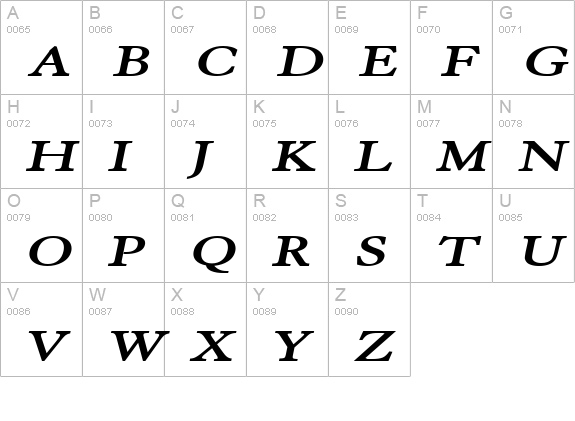
Elephant Extended BoldItalic is a distinctive, extended-width variant in the Elephant typeface family \xE2\x80\x94 well suited to design and typography projects.
Introducing Elephant Extended BoldItalic font - a powerful and dynamic typeface that demands attention. This font is designed to make a bold statement with its strong and striking appearance. The slanted italic style adds a touch of elegance and sophistication to any design project. Whether you're creating posters, logos, or branding materials, Elephant Extended BoldItalic font is sure to make a lasting impression. And the best part? This font is available for free download at FontsMarket.com. Take advantage of this amazing offer and enhance your designs with the unique and eye-catching Elephant Extended BoldItalic font. Don't miss out on this opportunity to add a touch of creativity and flair to your projects. Download Elephant Extended BoldItalic font today and let your designs stand out from the crowd!